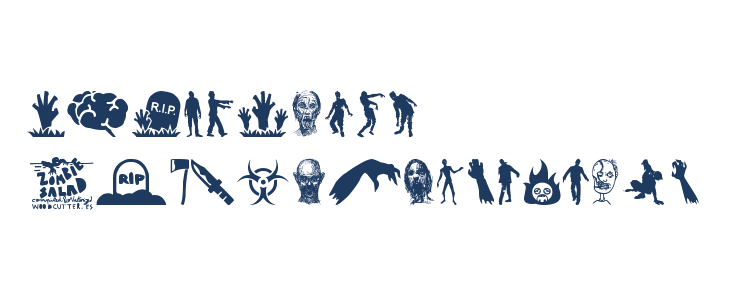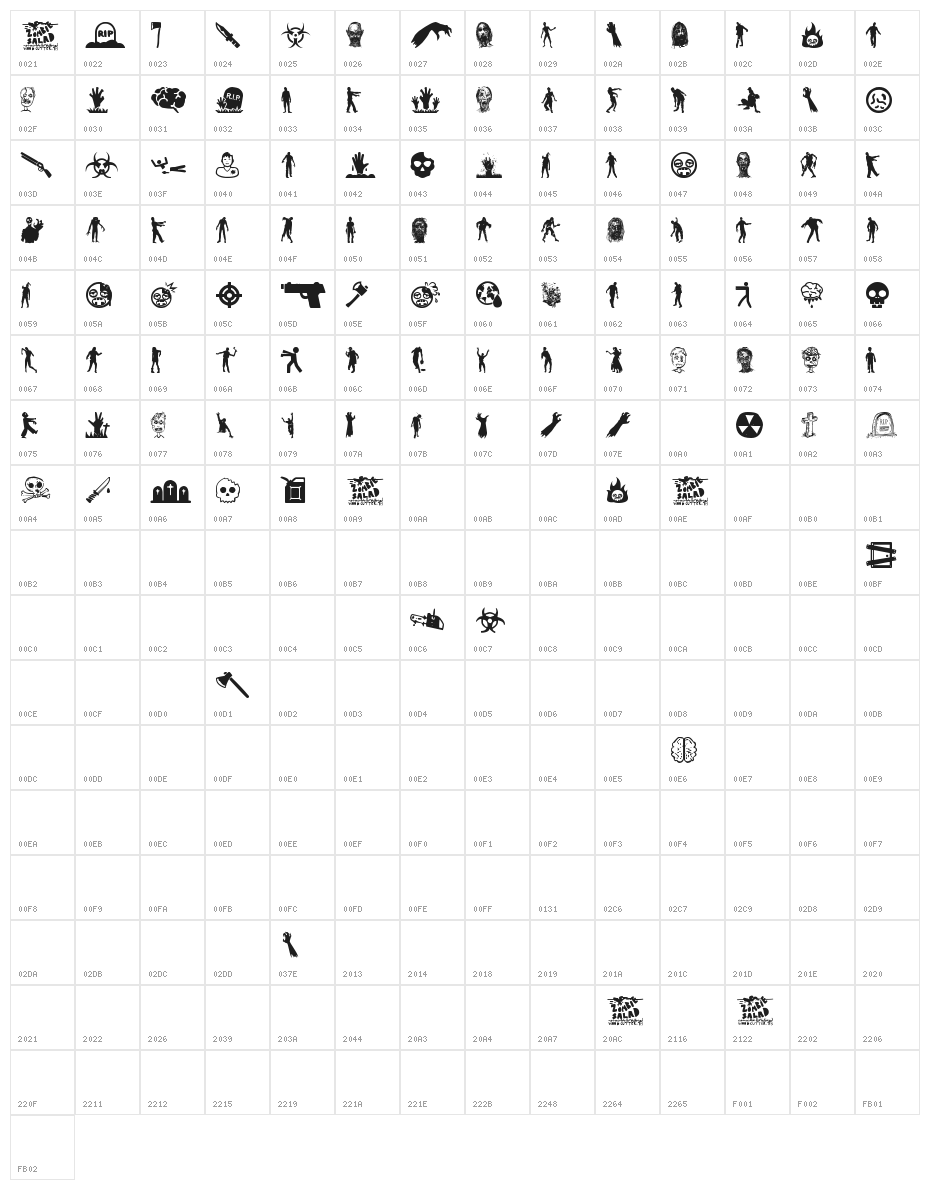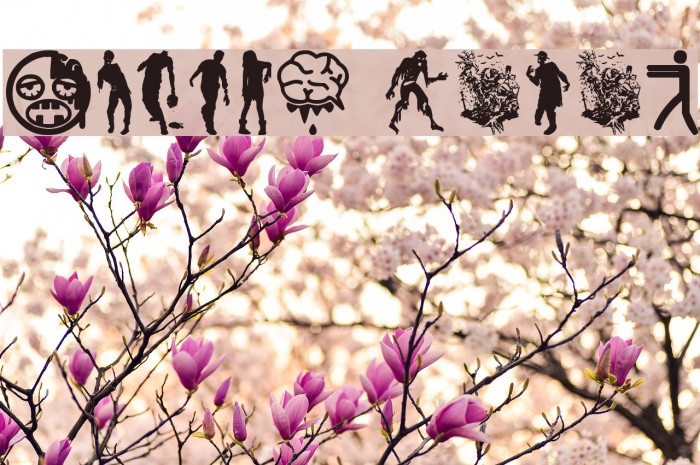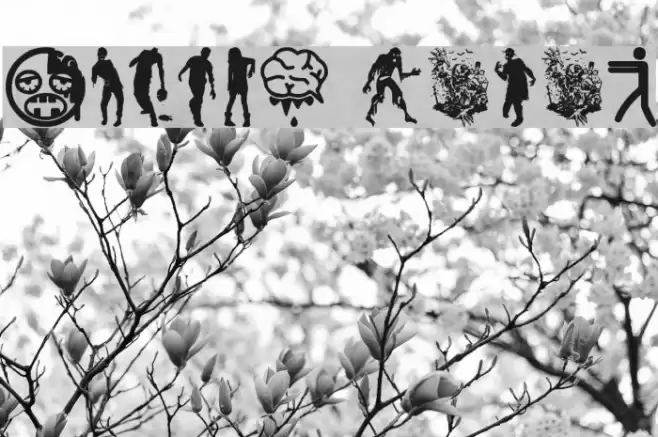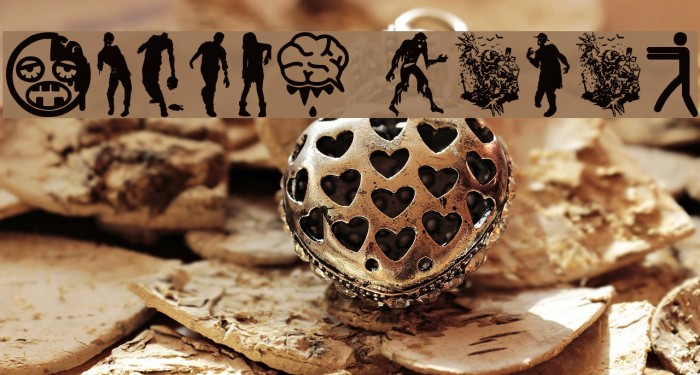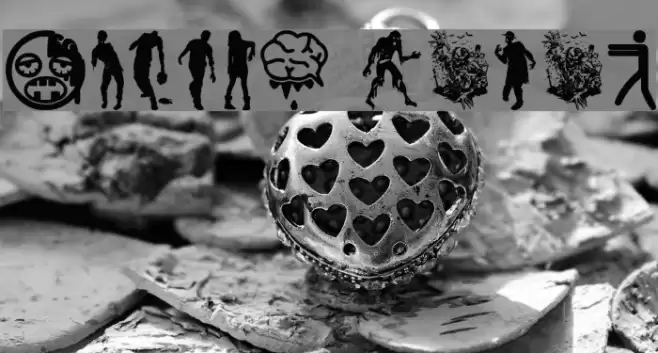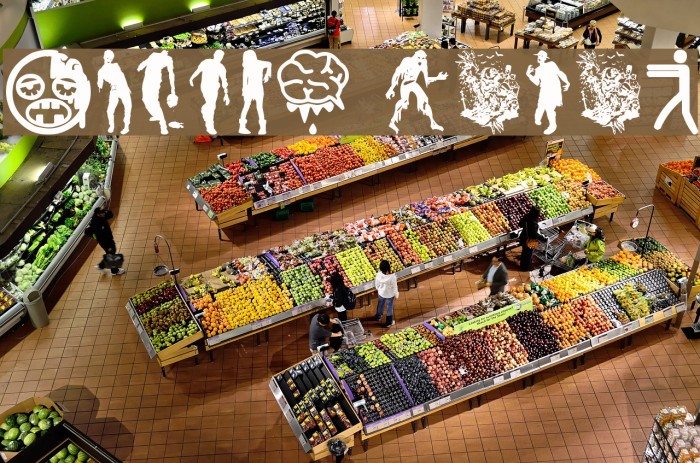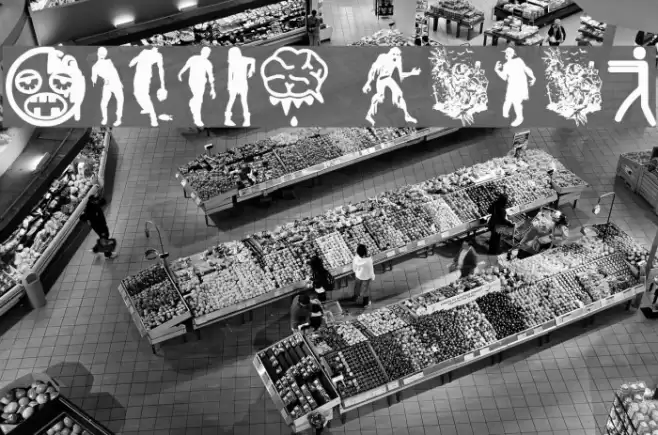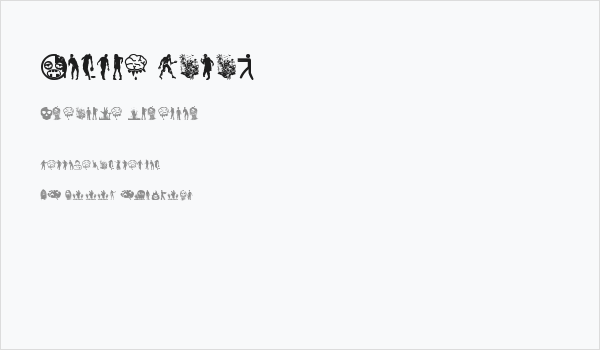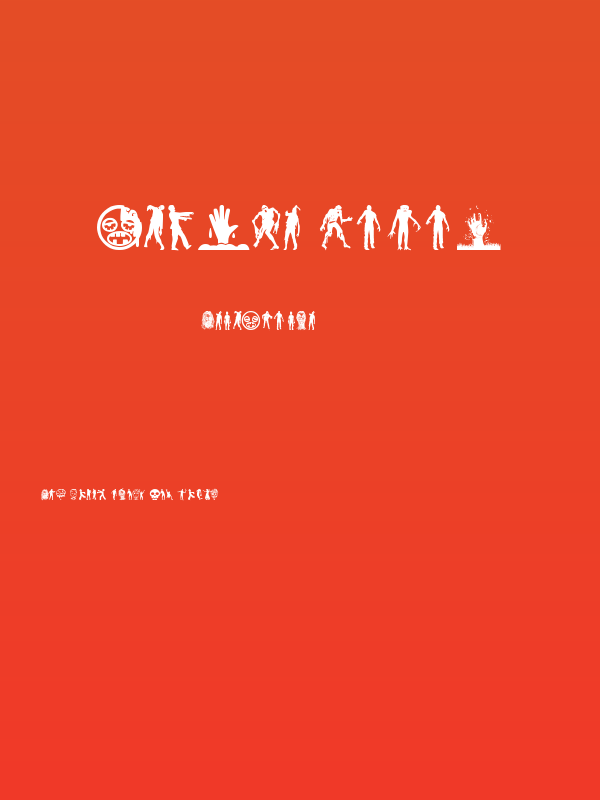
Zombie Salad Font
Zombie Salad Description
A highly decorative and illustrative dingbat font featuring various zombie-themed silhouettes, including zombies in different poses, severed hands, brains, gravestones, skulls, and other horror-related imagery. The glyphs are bold, high-contrast, and designed for visual impact rather than readability.
| Overall Style | Decorative, Horror, Thematic |
| Use Case | Logos, Posters, Themed Graphics, Event Branding |
| Proposed Projects | Halloween posters, horror movie flyers, party invitations, themed merchandise, escape room graphics, event branding. |